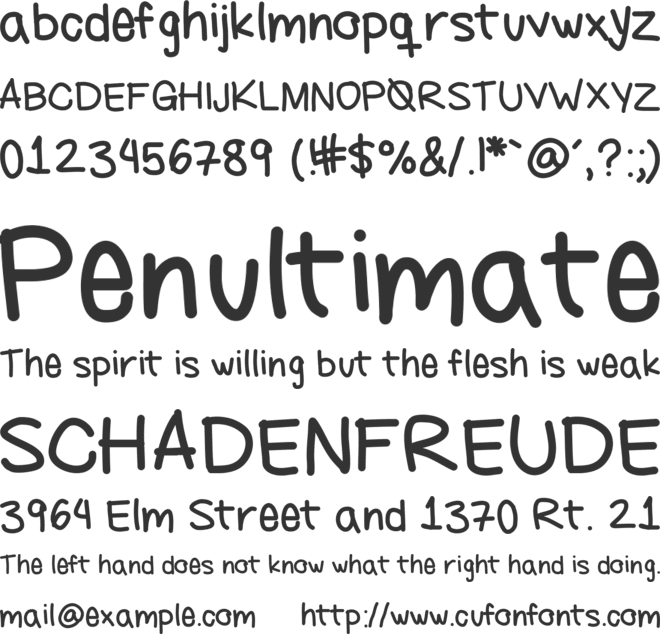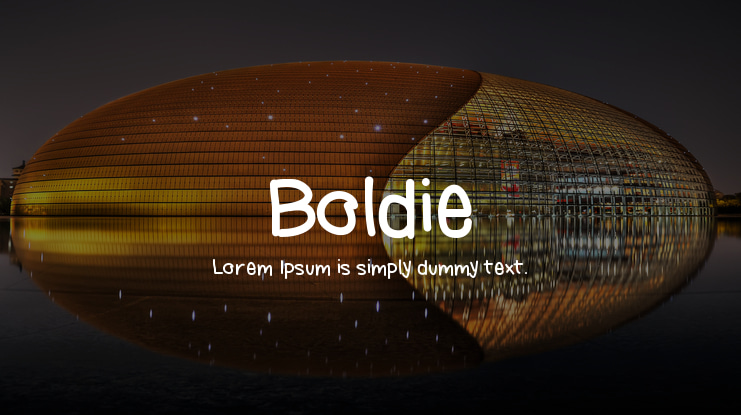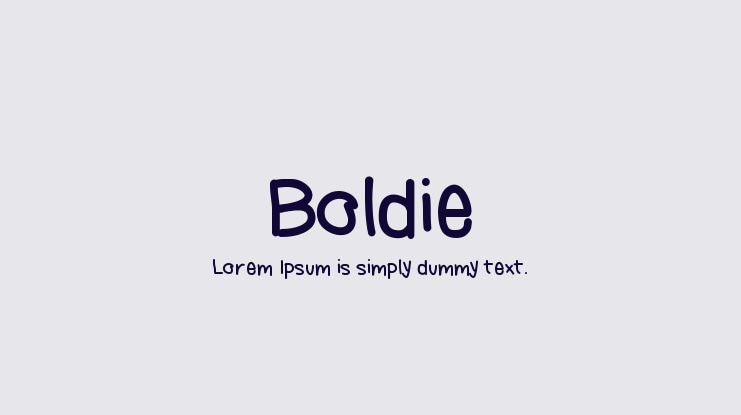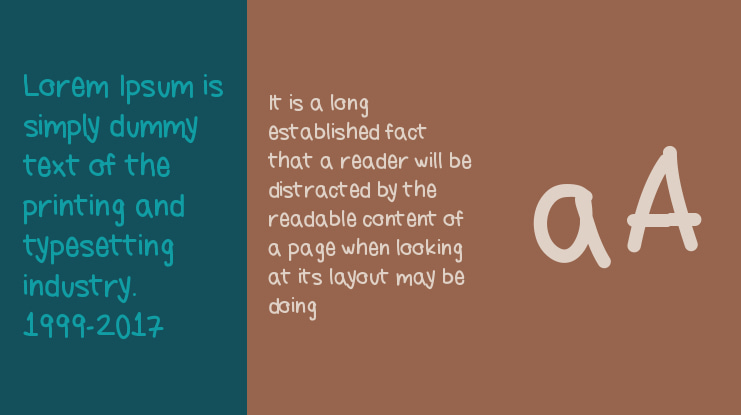
Boldie Font
This is a hand made font with my own handwritting. You can use it for whatever you want except commercial things (unless you contact me!)